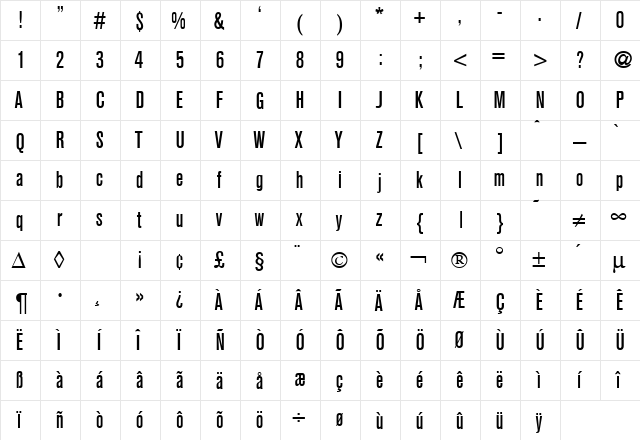
AkzentCondMedium Regular
Design Context for AkzentCondMedium Typeface
AkzentCondMedium is a composed and adaptable typeface that performs quietly and consistently across a wide range of design contexts. Its narrow stance lets it pack a punch even in space-constrained designs.